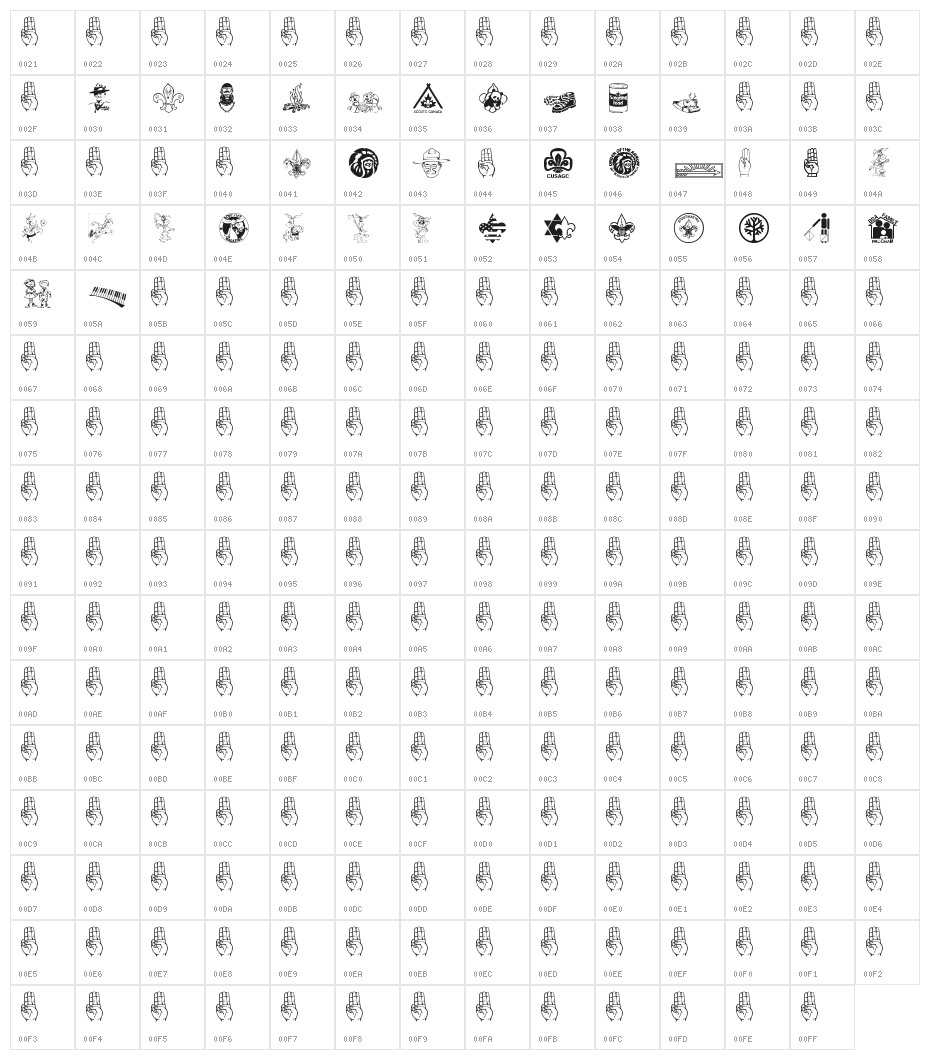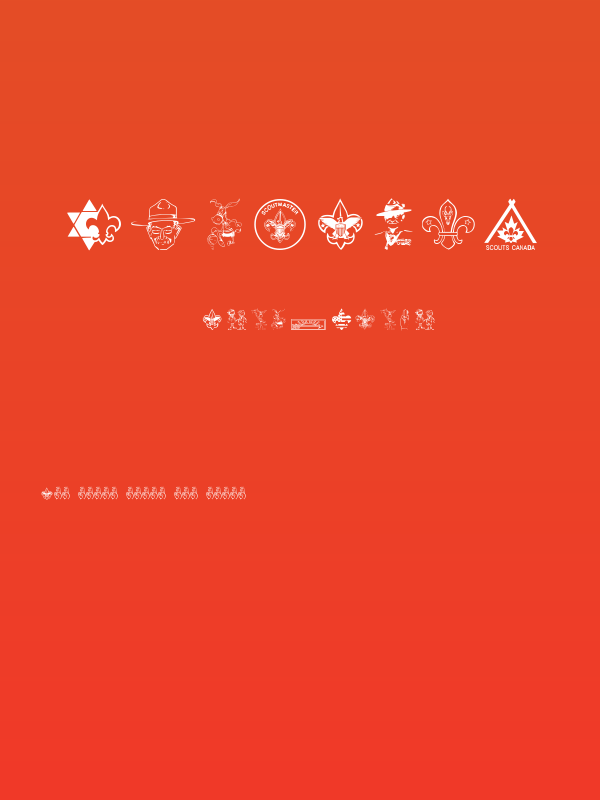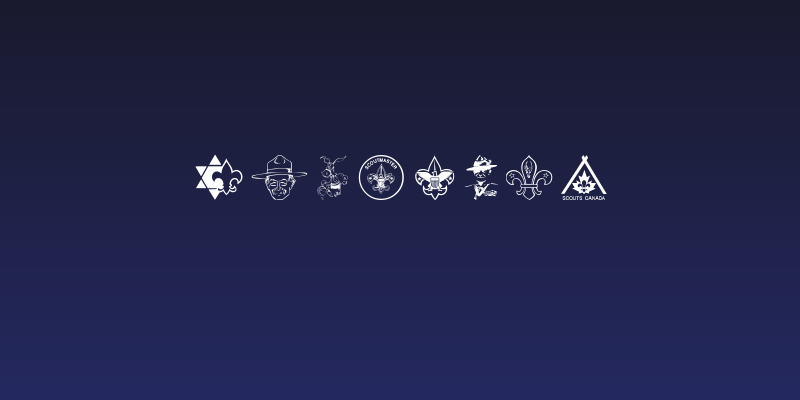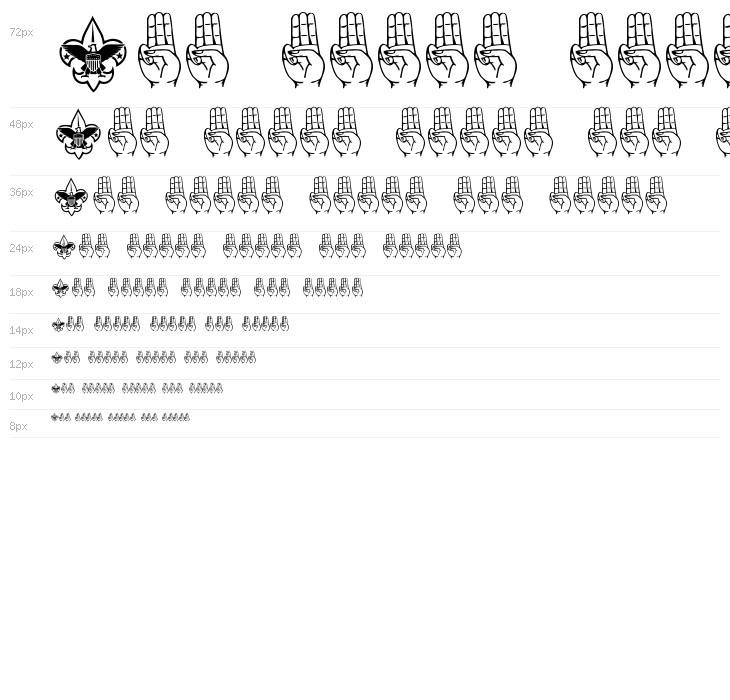
SCOUT015 Font
SCOUT015 Description
A decorative dingbat font featuring various scouting-themed icons, including hand signs, badges, mascots, campfires, and other scouting symbols. The glyphs are detailed, illustrative, and primarily line-based, with some filled elements for emphasis.
| Overall Style | Decorative, Thematic, Illustrative |
| Use Case | Icons, Logos, Themed graphics, Decorative elements |
| Proposed Projects | Scouting event flyers, badges, educational materials, themed invitations, scrapbooking. |